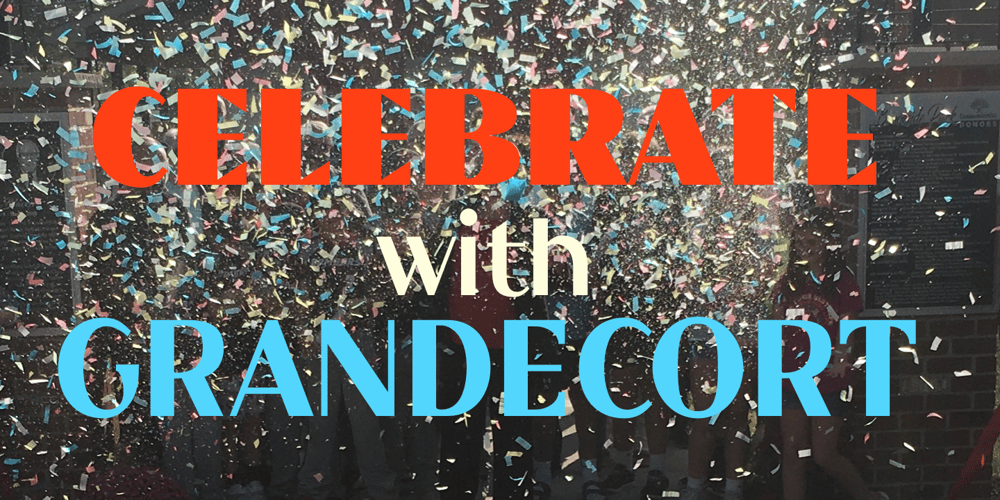
Grandecort
Grandecort font
Grandecort Font Family was designed by Robert Schenk and published by Ingrimayne Type. Grandecort contains 15 styles and family package options. Grandecort is a bold, sans-serif display face with high contrast. The family began as a reworking of the OakPark family, eliminating the serifs and modifying letters. Originally it had three members, two weights and one style that was caps-only with stripes. The caps-only style eventually was split into several striped styles that can be used in layers over a plain, bold style. The two weights were expanded to four with matching oblique styles. In addition, a shadowed style was created with the inside pulled out as another style that can used in a layer with the shadowed style. Grandecort has an Art-Deco feel. A happy, joyful font full of energy, it can be used for themes of celebration and partying. The light weight is legible enough for short text.